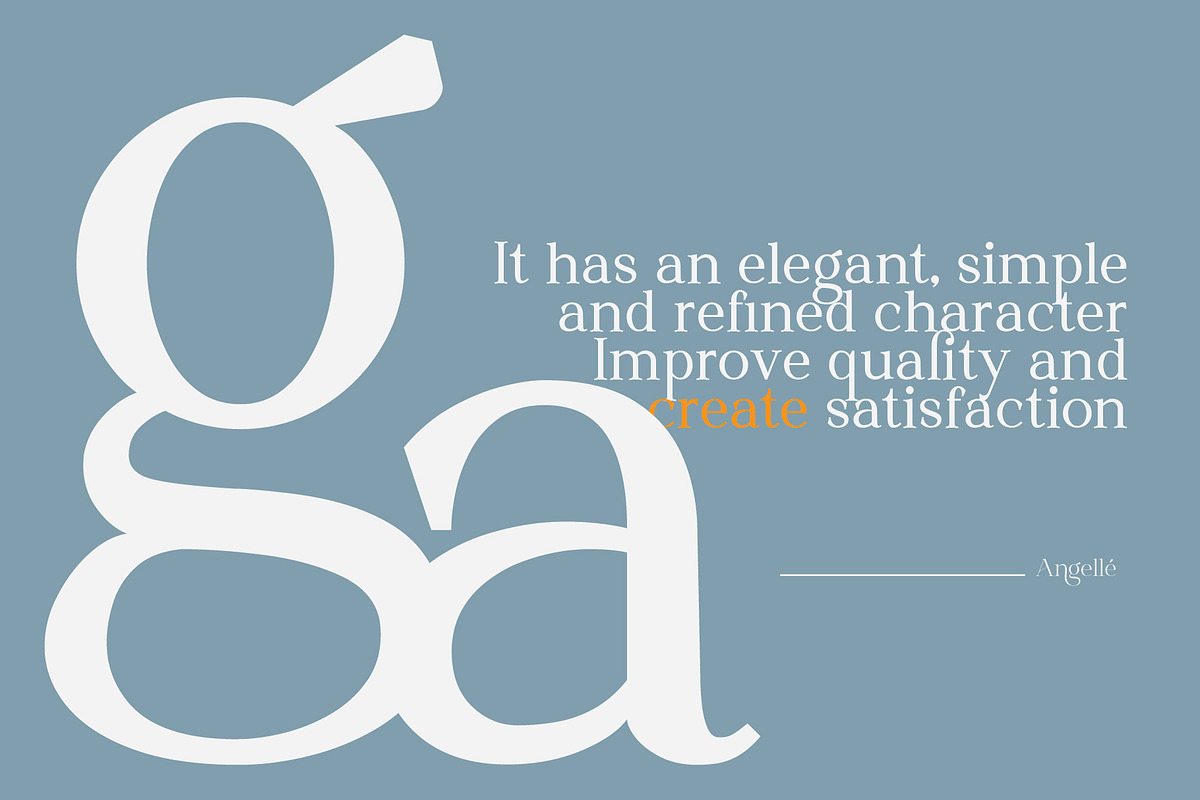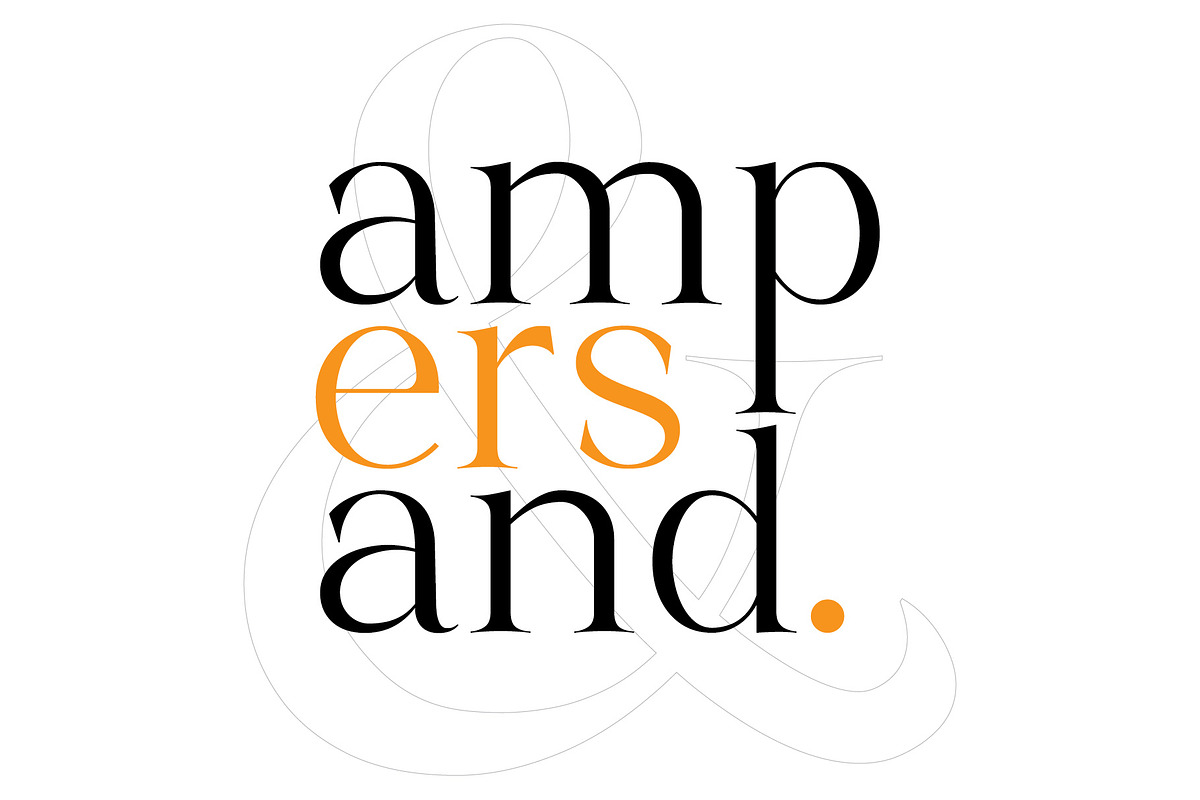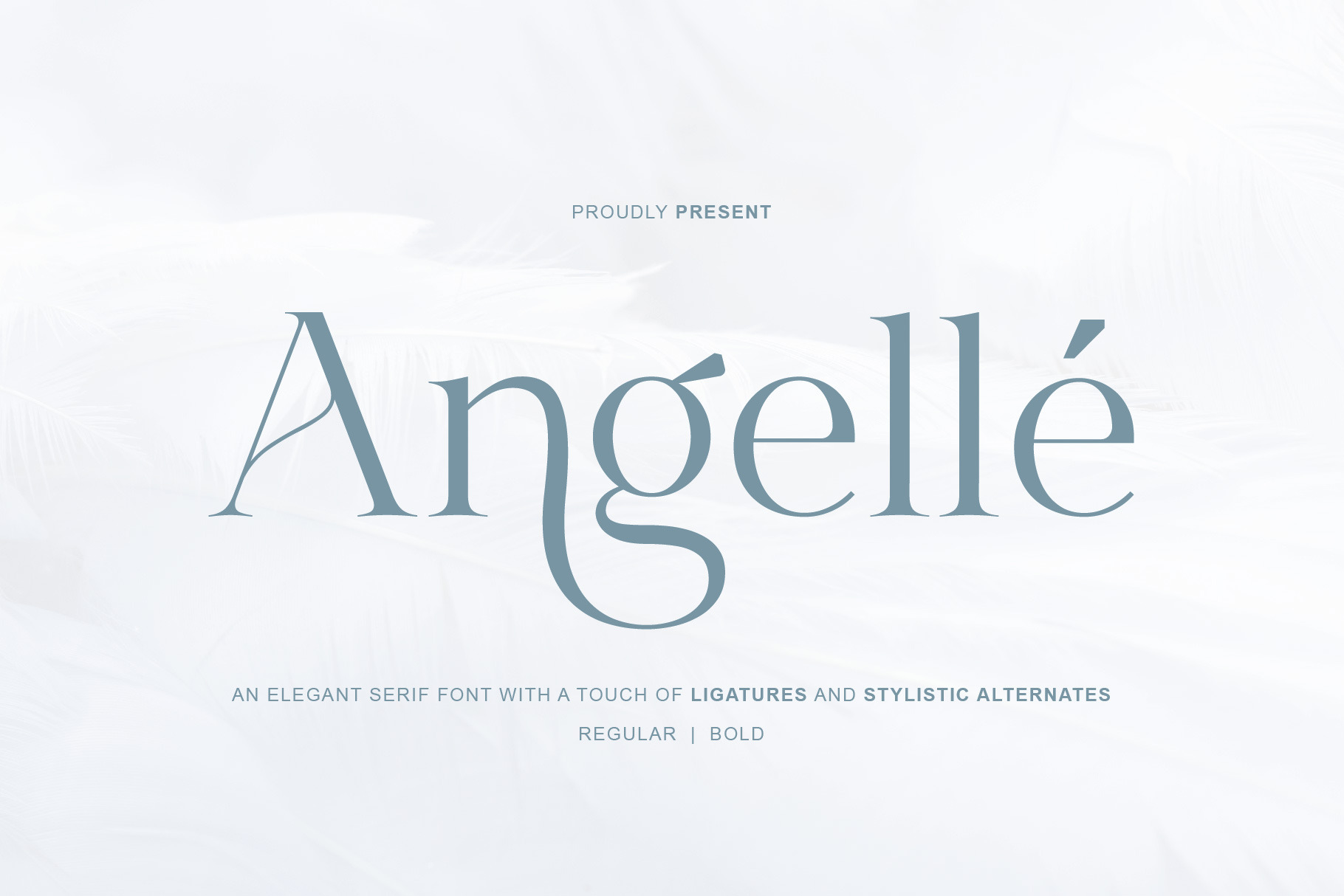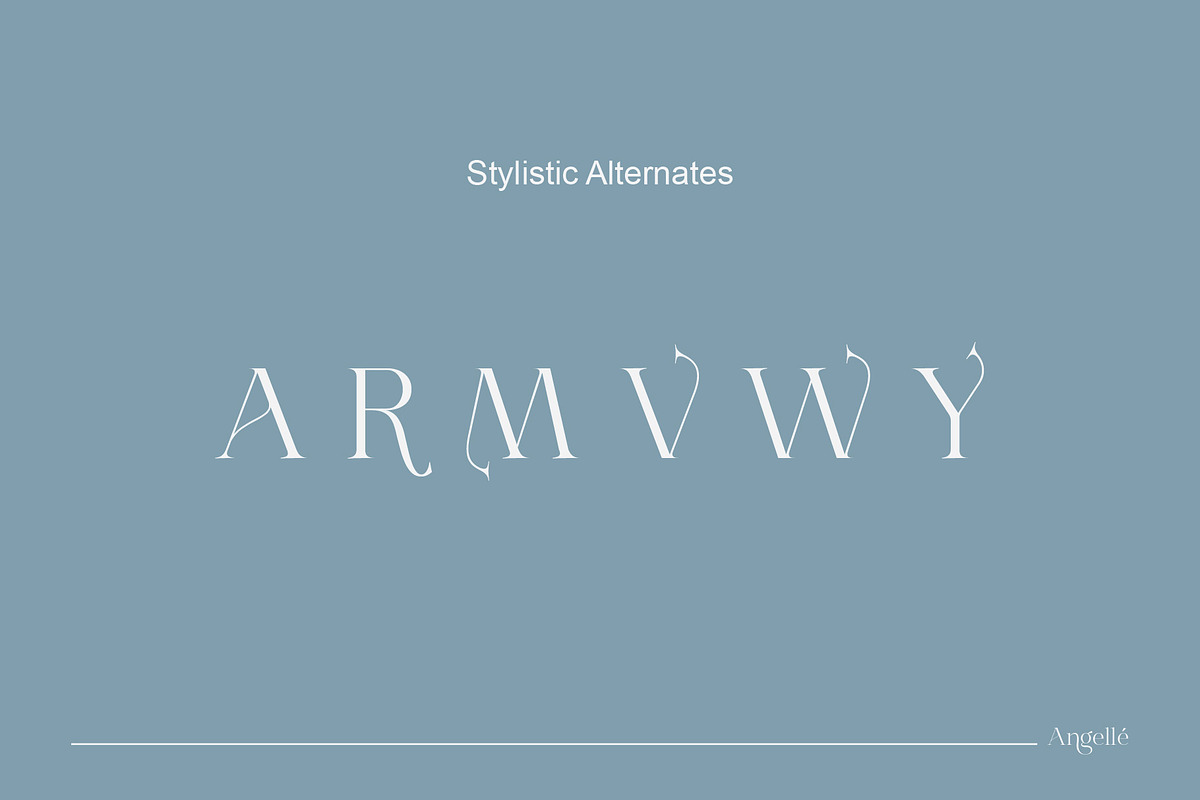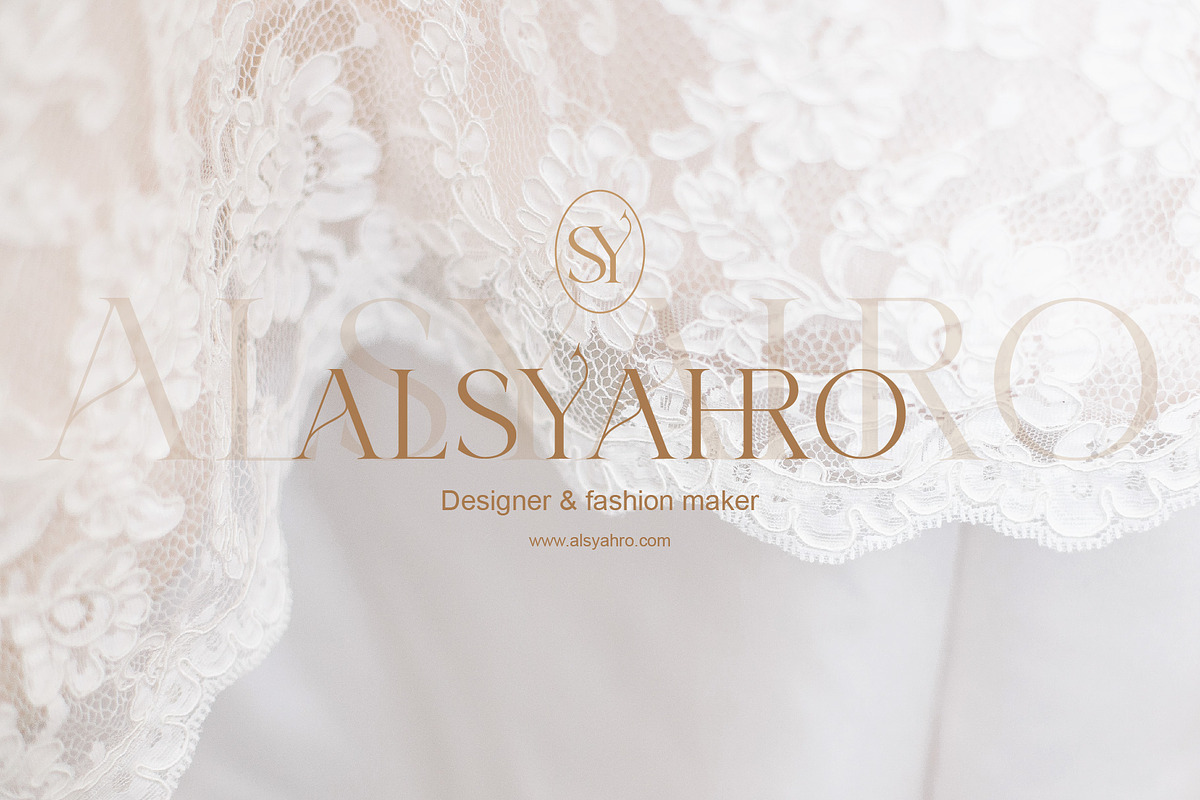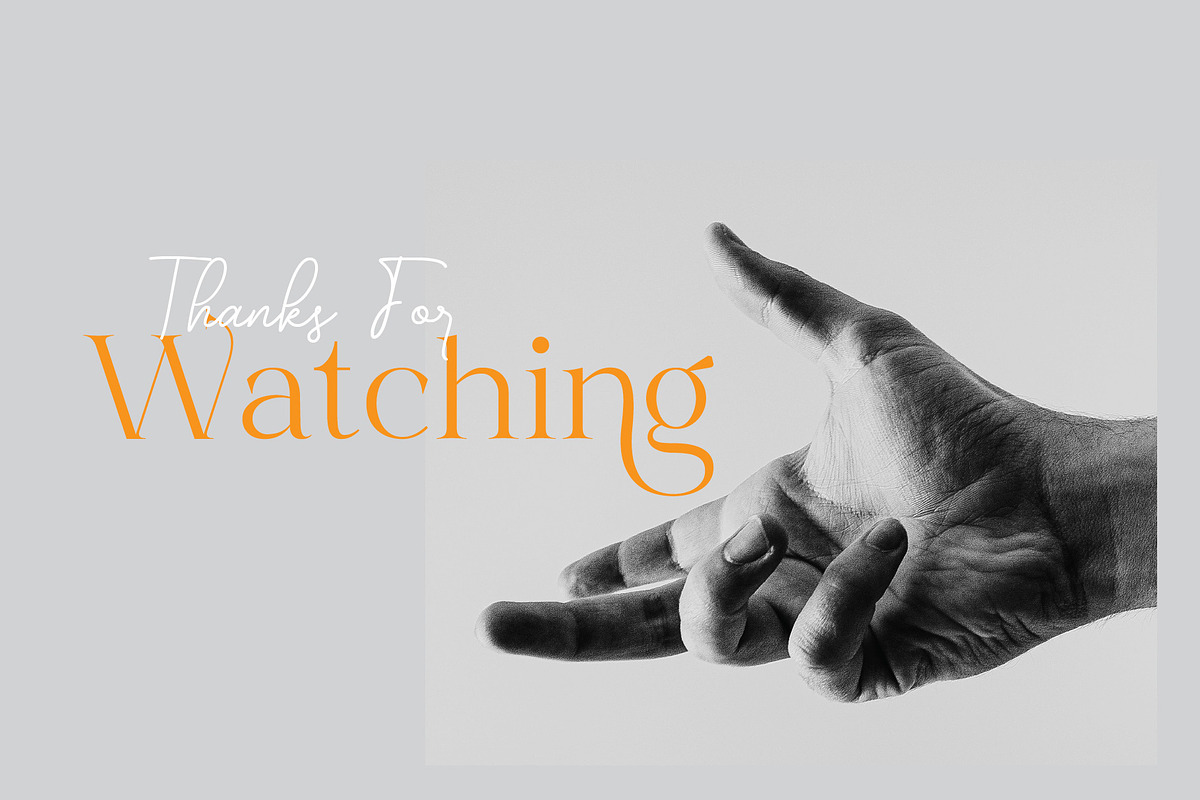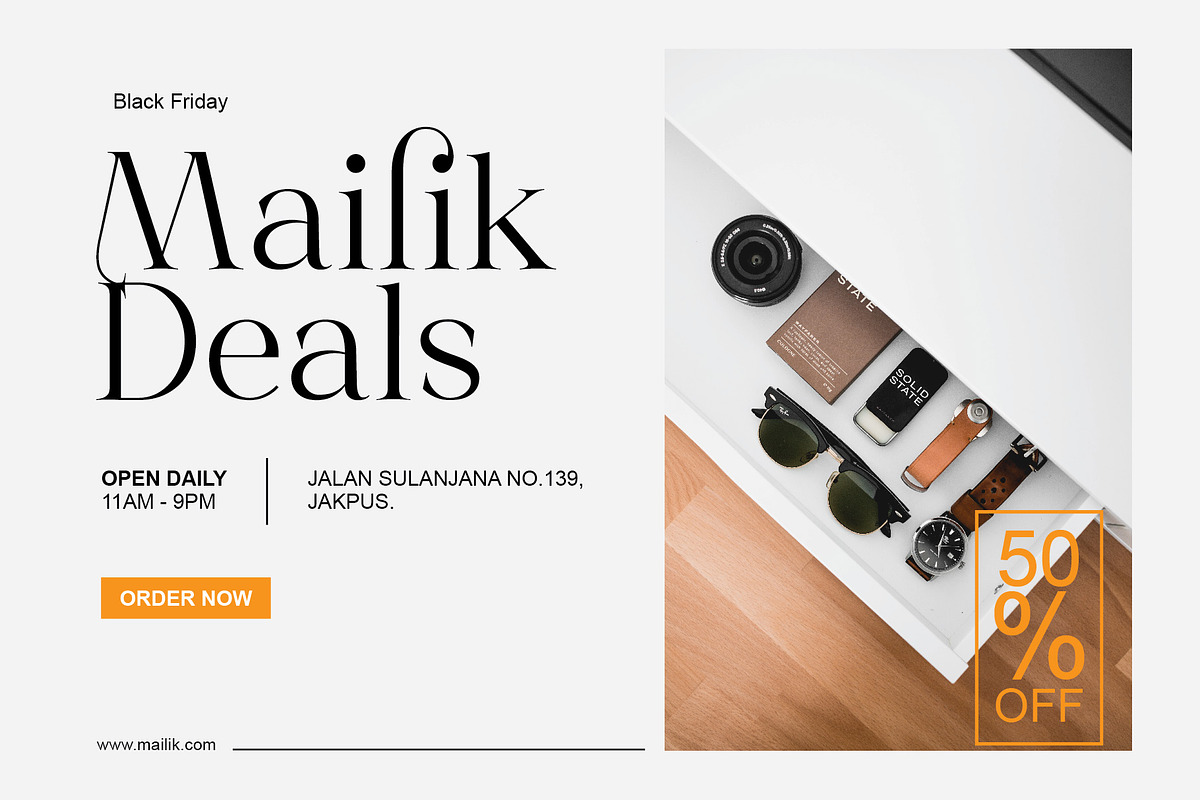
Angelle elegant serif font
Angelle is a serif type. Inside there are two options, namely Regular and Bold. In addition, this font also comes with Ligature and Stylistic Alternates features. The font has an elegant, delicate and luxurious character. Very lucky for those of you who can have it. This font can be used to create wedding invitations, presentations, web, magazines, covers, and various other designs.